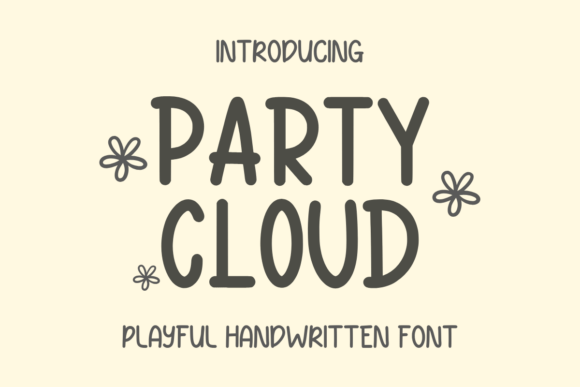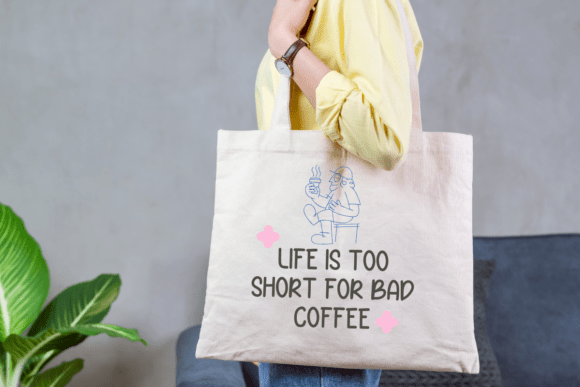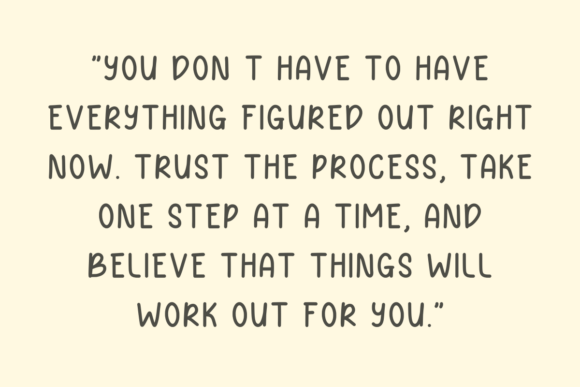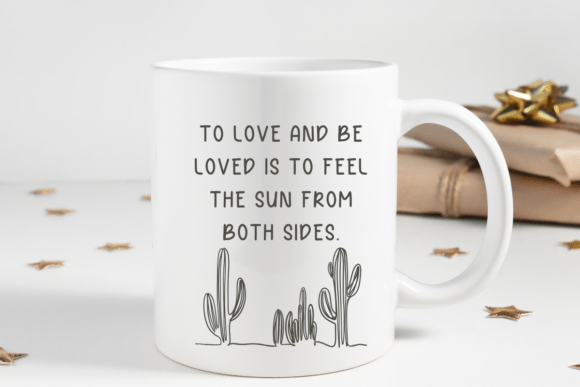
Party Cloud Font: A Cute Handwritten Font for Cricut & DIY Projects
About the Party Cloud Font
Step up your design game with Party Cloud Font, a font that exudes confidence and style. Party Cloud is a playful handwritten font that’s perfect for crafts, planners, KDP, stickers, greeting cards, and more. With its cute and friendly style, it works great for Cricut, sublimation, and creative DIY projects. Ideal for crafters, designers, and makers!
Its friendly, informal style makes it ideal for projects needing a lighthearted touch, such as children’s books, invitations, or branding for small businesses with a playful image. However, its handwritten nature and inconsistent stroke weights make it unsuitable for body text or situations requiring high readability. Avoid using it for lengthy paragraphs or UI elements.
Pairing Party Cloud with a clean sans-serif like Open Sans for body copy provides excellent contrast and readability. For a more sophisticated feel, consider pairing it with a delicate serif font like Lora. A geometric sans-serif, such as Montserrat, offers a modern counterpoint to its organic forms.
Party Cloud’s core personality is undeniably cheerful and approachable, conveying a sense of fun and approachability. This makes it a strong choice for brands targeting a youthful or family-oriented audience.
Party Cloud Font Usage Examples
Party Cloud Font Example